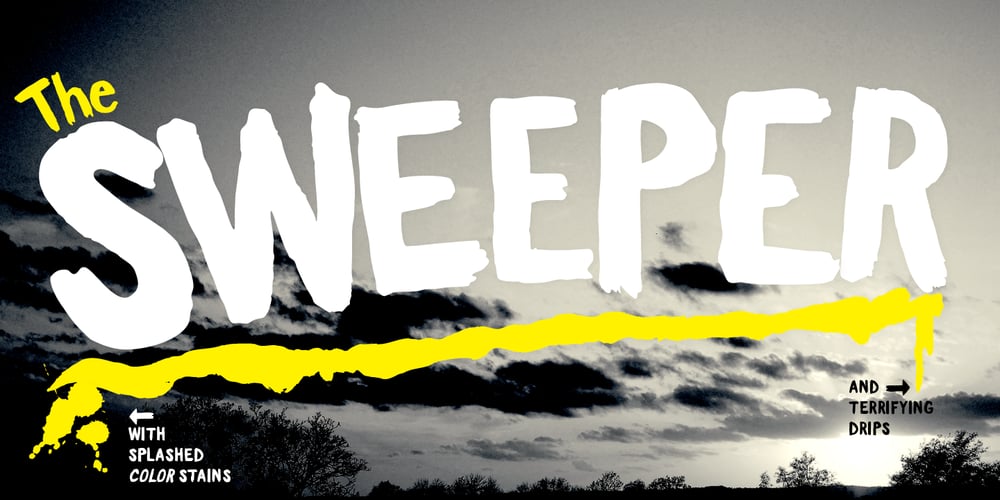
Sweeper
Sweeper font
Sweeper Font Family was designed by Andreas Brunelius and published by Gustav & Brun. Sweeper contains 2 styles and family package options. Sweeper is a font with several personalities; it’s friendly and scary at the same time, almost like Santa Claus, but nicer. Sweeper has got a handy touch with a lot of different possibilities. You can use it in several occasions. Sweeper is suitable in any environment: the business district in London or the shores of Oxelösund. It’s hella wide and hella fun!